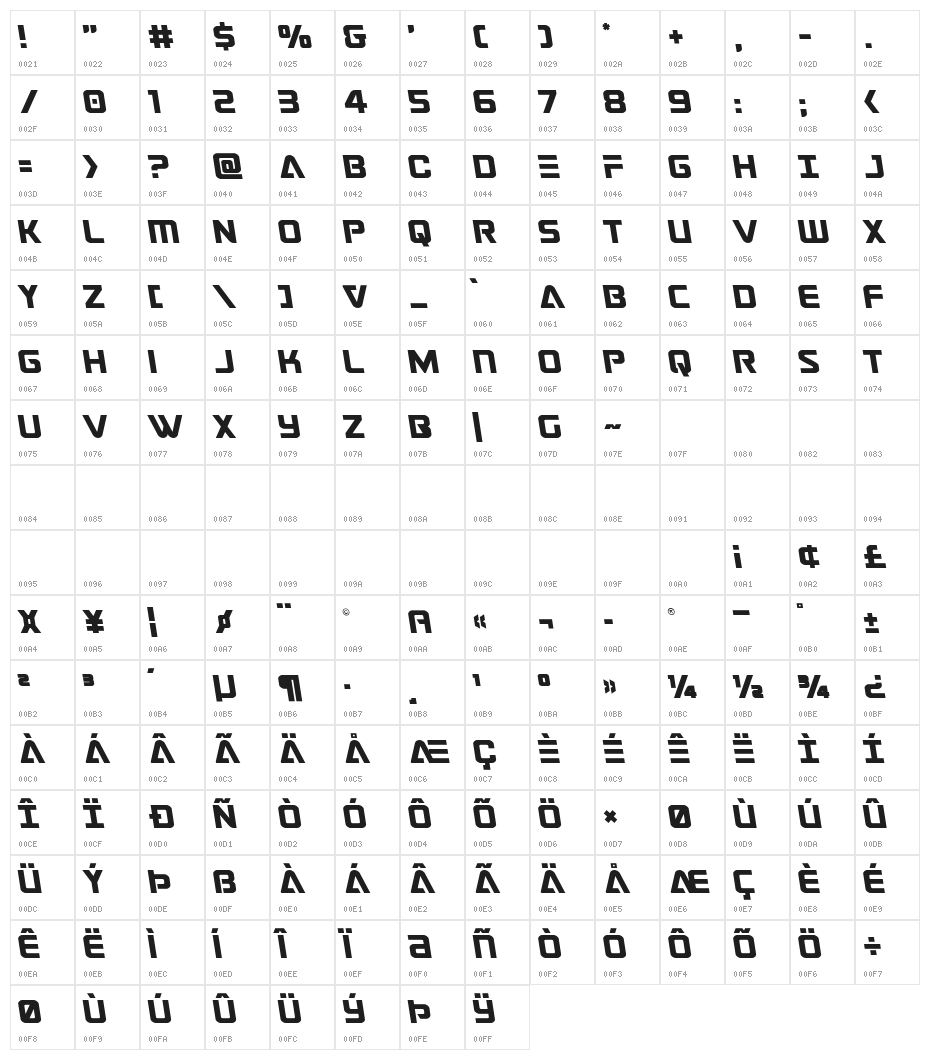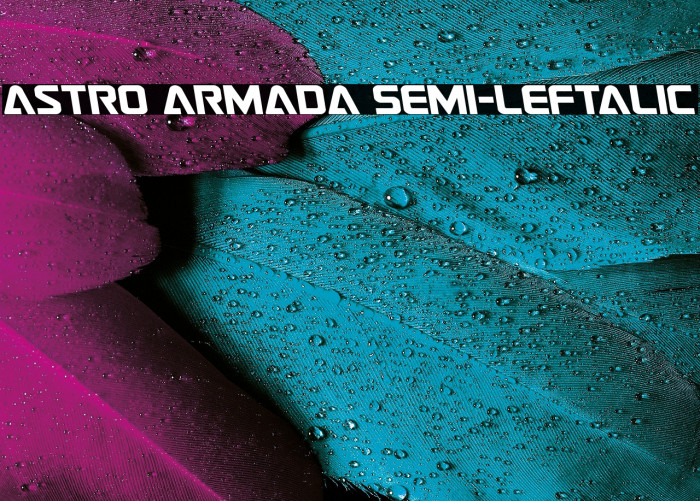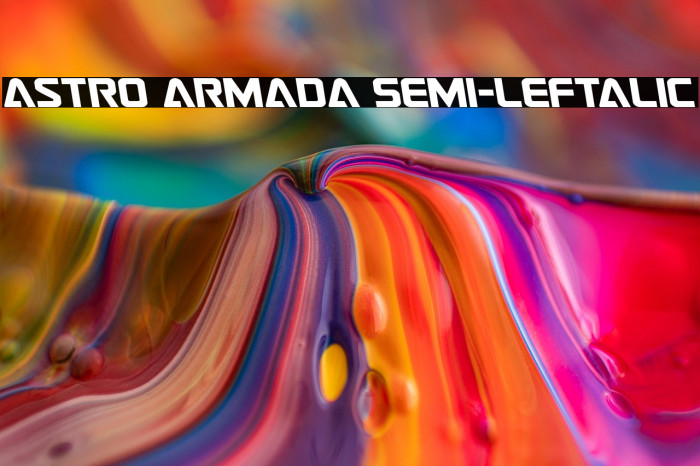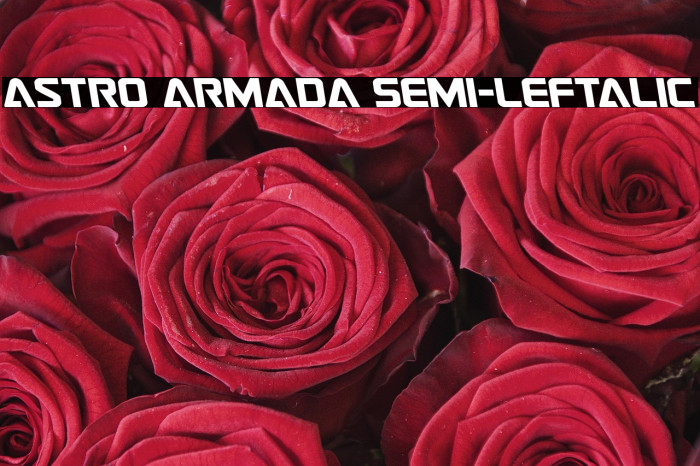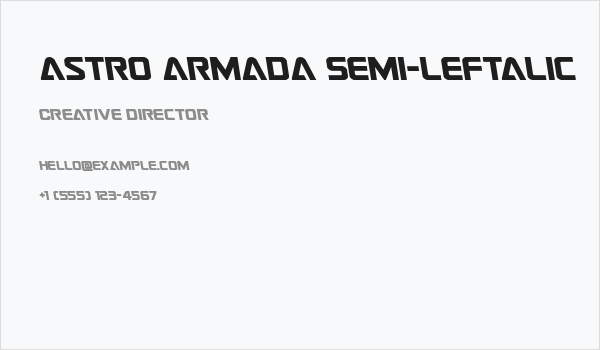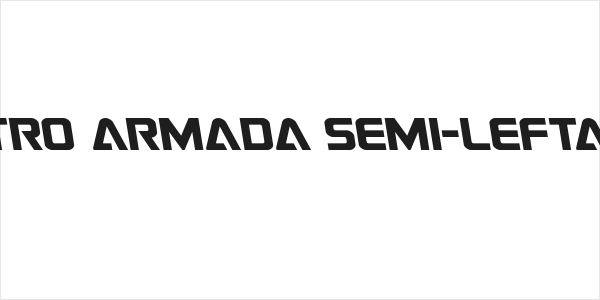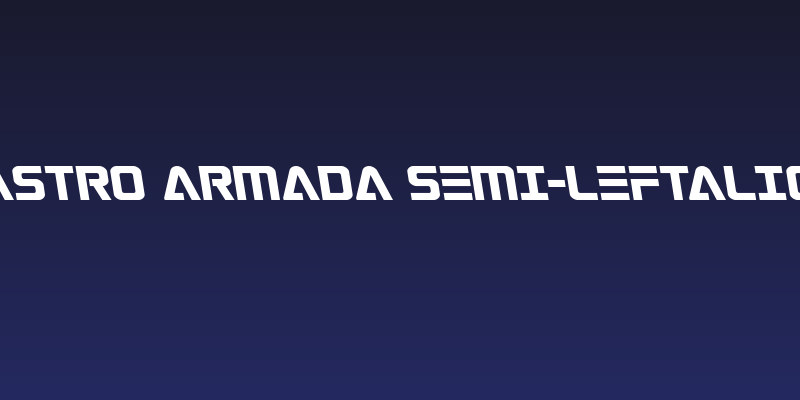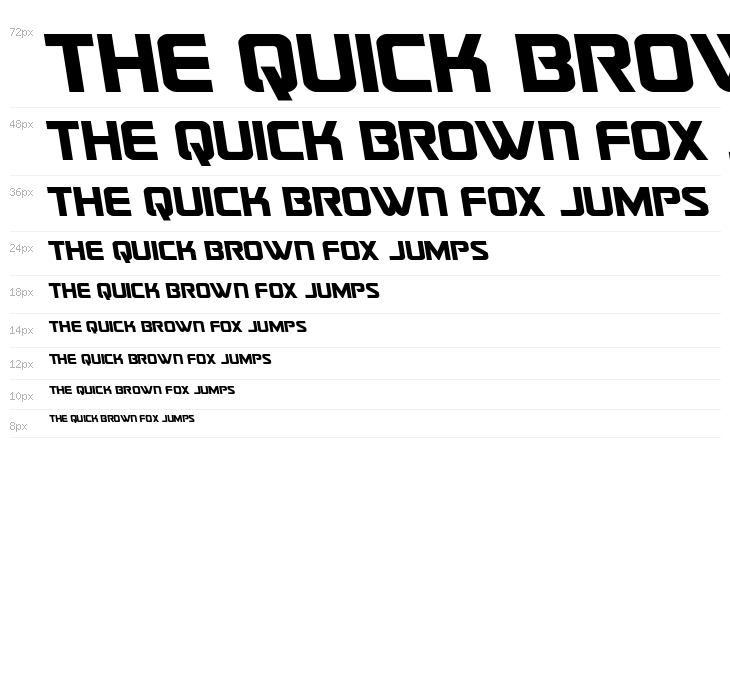
Astro Armada Semi-Leftalic Font
Astro Armada Semi-Leftalic Description
This font features a bold and futuristic design with a distinct geometric structure. The characters are angular and slightly slanted, giving a dynamic and forward-moving appearance. The uppercase letters are uniform in height, while the lowercase letters maintain a consistent style, enhancing readability. The numbers are bold and match the overall aesthetic, making them suitable for impactful displays. Special characters are crafted with the same attention to detail, ensuring a cohesive look across all elements. The font's unique style makes it ideal for projects that require a modern and tech-inspired feel.
| Proposed Projects | Ideal for sci-fi themed posters, video game titles, tech branding, and futuristic web design. |